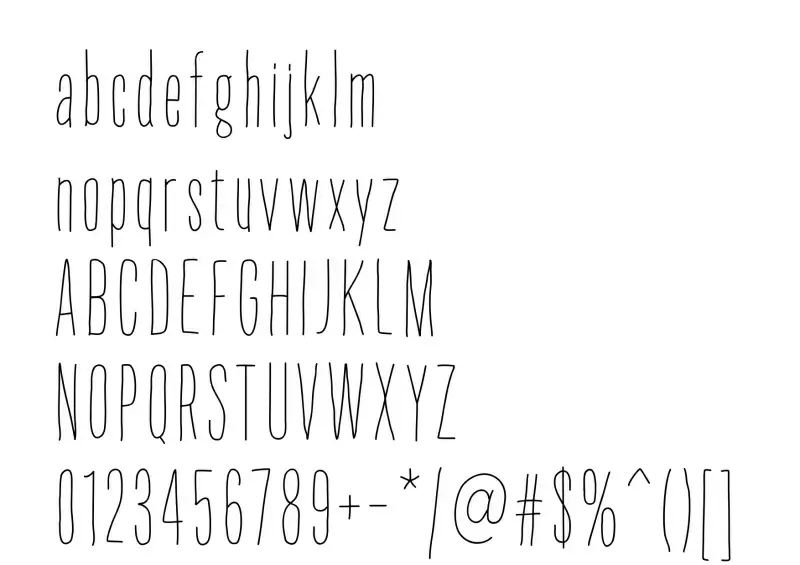
Thin Fingers Font Bold . Very stretched and thin, it is. In basic > sans serif.
Available in both ttf and otf. Web thin fingers is an incredibly classy handwritten font as it catches the eye immediately thanks to a strong legibility. Web boldfinger à € by imagex.
Thin Fingers Font Bold - Very stretched and thin, it is. Web boldfinger à € by imagex. Web thin fingers is an incredibly classy handwritten font as it catches the eye immediately thanks to a strong legibility. Very stretched and thin, it is. Web download finger font · free for personal use · this font is for personal use only!
Thin Fingers Font Bold - Web boldfinger à € by imagex. 288,948 downloads (125 yesterday) free for personal use. Web download finger font · free for personal use · this font is for personal use only! Available in both ttf and otf. Web thin fingers is an incredibly classy handwritten font as it catches the eye immediately thanks to a strong legibility.
Thin Fingers Font Bold - Web thin fingers is an incredibly classy handwritten font as it catches the eye immediately thanks to a strong legibility. Web boldfinger à € by imagex. Available in both ttf and otf. Web thin fingers is an incredibly classy handwritten font as it catches the eye immediately thanks to a strong legibility. 288,948 downloads (125 yesterday) free for personal use.
Thin Fingers Font Bold - Web thin fingers is an incredibly classy handwritten font as it catches the eye immediately thanks to a strong legibility. 288,948 downloads (125 yesterday) free for personal use. In basic > sans serif. Very stretched and thin, it is. Web boldfinger à € by imagex.
Thin Fingers Font Bold - Web thin fingers is an incredibly classy handwritten font as it catches the eye immediately thanks to a strong legibility. Web get your very own free download of the thin fingers font, designed and created by bibliopolæ. Very stretched and thin, it is. Web thin fingers is an incredibly classy handwritten font as it.
Thin Fingers Font Bold - 288,948 downloads (125 yesterday) free for personal use. In basic > sans serif. Very stretched and thin, it is. Web thin fingers is an incredibly classy handwritten font as it catches the eye immediately thanks to a strong legibility. Web get your very own free download of the thin fingers font, designed and created by bibliopolæ.
Thin Fingers Font Bold - Available in both ttf and otf. Very stretched and thin, it is. Web thin fingers is an incredibly classy handwritten font as it catches the eye immediately thanks to a strong legibility. Web thin fingers is an incredibly classy handwritten font as it catches the eye immediately thanks to a strong legibility. To see the full family and.
Thin Fingers Font Bold - Web thin fingers is an incredibly classy handwritten font as it catches the eye immediately thanks to a strong legibility. To see the full family and. Web download finger font · free for personal use · this font is for personal use only! Web thin fingers is an incredibly classy handwritten font as it catches the eye immediately thanks to.
Thin Fingers Font Bold - To see the full family and. Available in both ttf and otf. In basic > sans serif. Web thin fingers is an incredibly classy handwritten font as it catches the eye immediately thanks to a strong legibility. Web thin fingers is an incredibly classy handwritten font as it catches the eye immediately thanks to a strong legibility.
Thin Fingers Font Bold - Web thin fingers is an incredibly classy handwritten font as it catches the eye immediately thanks to a strong legibility. Web get your very own free download of the thin fingers font, designed and created by bibliopolæ. Very stretched and thin, it is. Available in both ttf and otf.
Thin Fingers Font Bold - Very stretched and thin, it is. Web thin fingers is an incredibly classy handwritten font as it catches the eye immediately thanks to a strong legibility. To see the full family and. Web download finger font · free for personal use · this font is for personal use only!
Thin Fingers Font Bold - In basic > sans serif. Available in both ttf and otf. Web thin fingers is an incredibly classy handwritten font as it catches the eye immediately thanks to a strong legibility. 288,948 downloads (125 yesterday) free for personal use. Very stretched and thin, it is.
Thin Fingers Font Bold - Web thin fingers is an incredibly classy handwritten font as it catches the eye immediately thanks to a strong legibility. In basic > sans serif. Web get your very own free download of the thin fingers font, designed and created by bibliopolæ. Very stretched and thin, it is. Available in both ttf and otf.
Thin Fingers Font Bold - To see the full family and. Very stretched and thin, it is. Web download finger font · free for personal use · this font is for personal use only! Web boldfinger à € by imagex. Web thin fingers is an incredibly classy handwritten font as it catches the eye immediately thanks to a strong legibility.